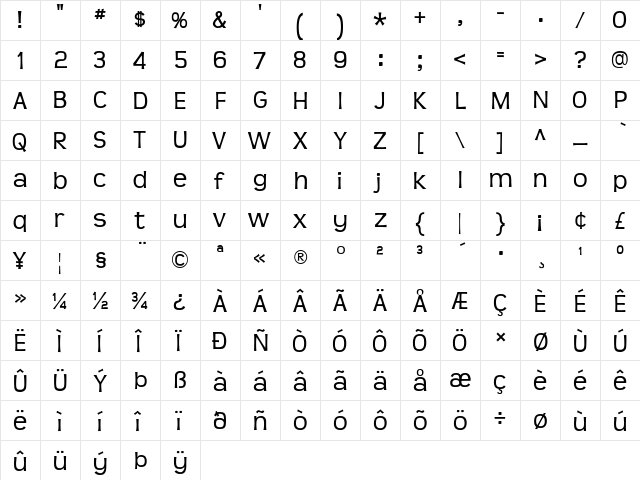
Teen Regular
| Foundry | Martin Archer / Ray Larabie |
| Designer | Ray Larabie & Martin Archer |
Design Context for Teen Typeface
Teen offers clean, dependable letterforms without strong stylistic allegiance, making it a practical choice for designers who need flexibility.